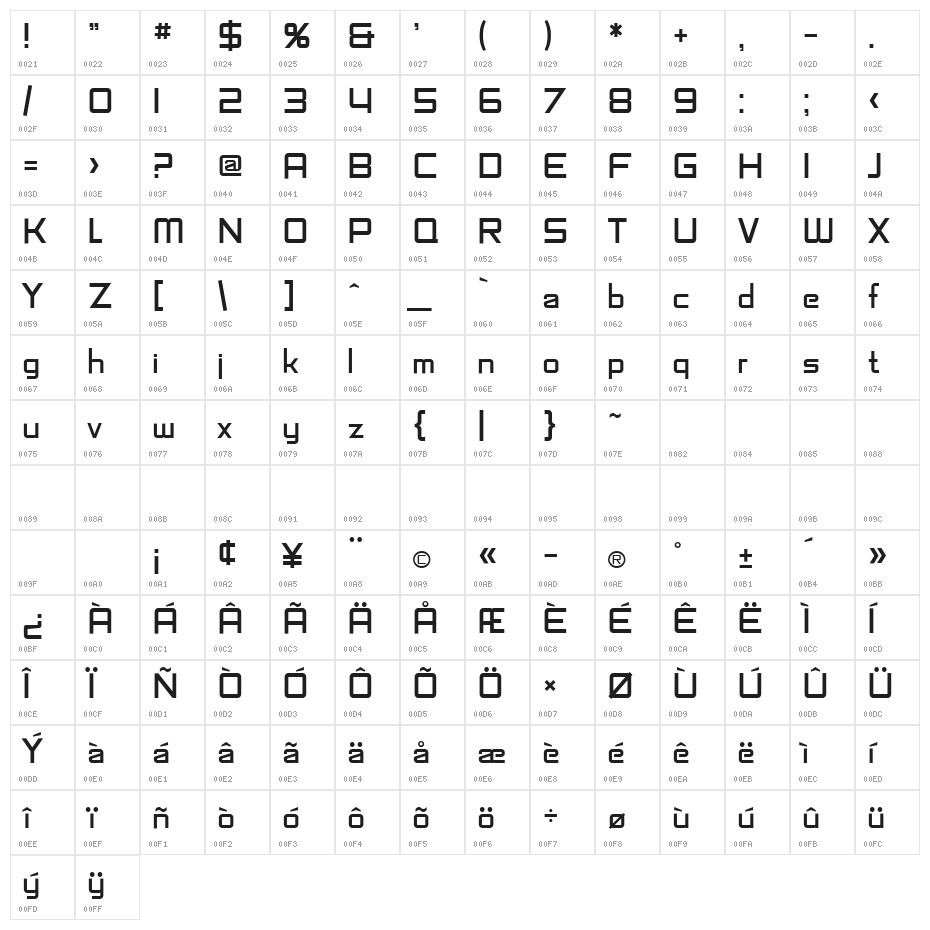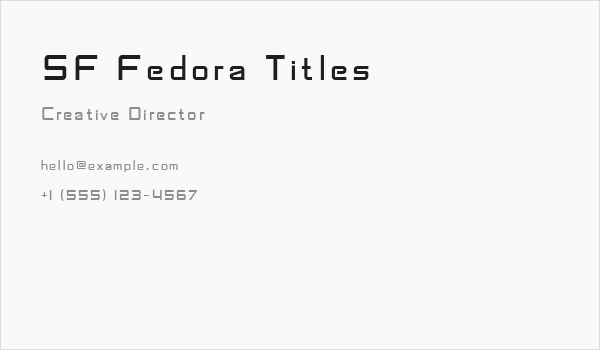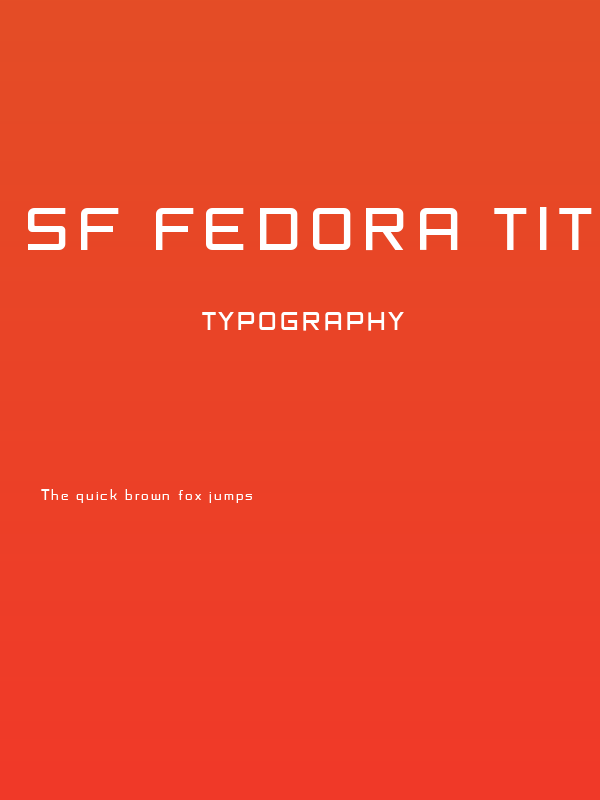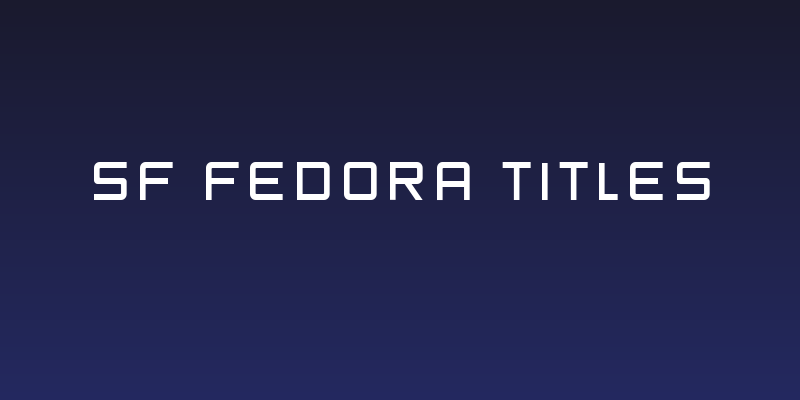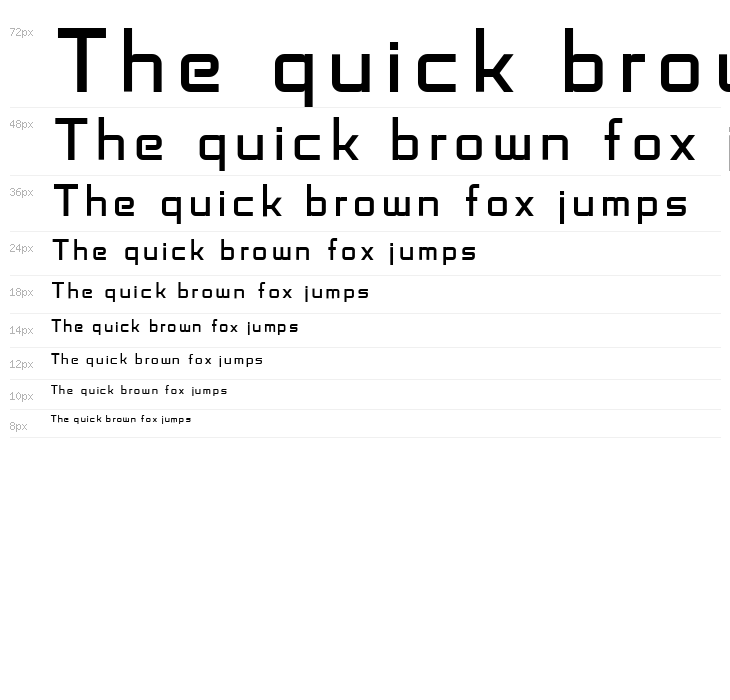
SF Fedora Titles Font
SF Fedora Titles Description
This font features a modern, geometric design with clean lines and a structured appearance. The characters are uniform in width, giving it a monospaced feel, although it maintains a proportional spacing. The uppercase letters are bold and assertive, while the lowercase letters have a slightly softer touch, yet still retain a strong presence. The numerals are clear and easy to read, matching the overall style of the alphabet. Special characters are distinct and well-integrated into the font's design. The font's overall look is sleek and contemporary, making it suitable for a variety of digital and print applications.
| Use Case | Headlines, Logos, Digital interfaces |
| Proposed Projects | Ideal for technology branding, digital interfaces, coding environments, and modern editorial design. |